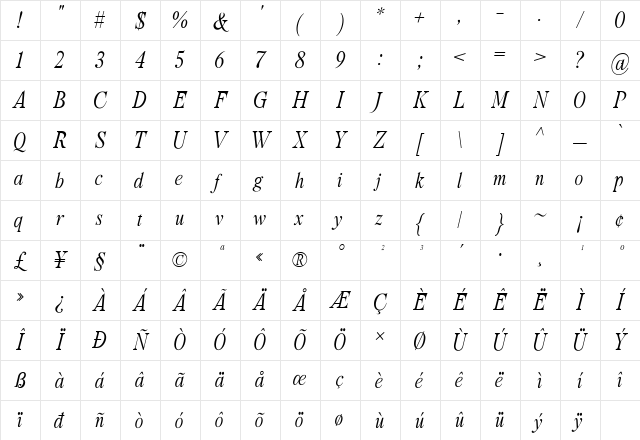
relationship of mlodrame Regular Free Font
relationship of mlodrame Regular
Designer: faisal tanjung
Design Context for relationship of mlodrame
relationship of mlodrame is a composed and adaptable typeface that performs quietly and consistently across a wide range of design contexts.